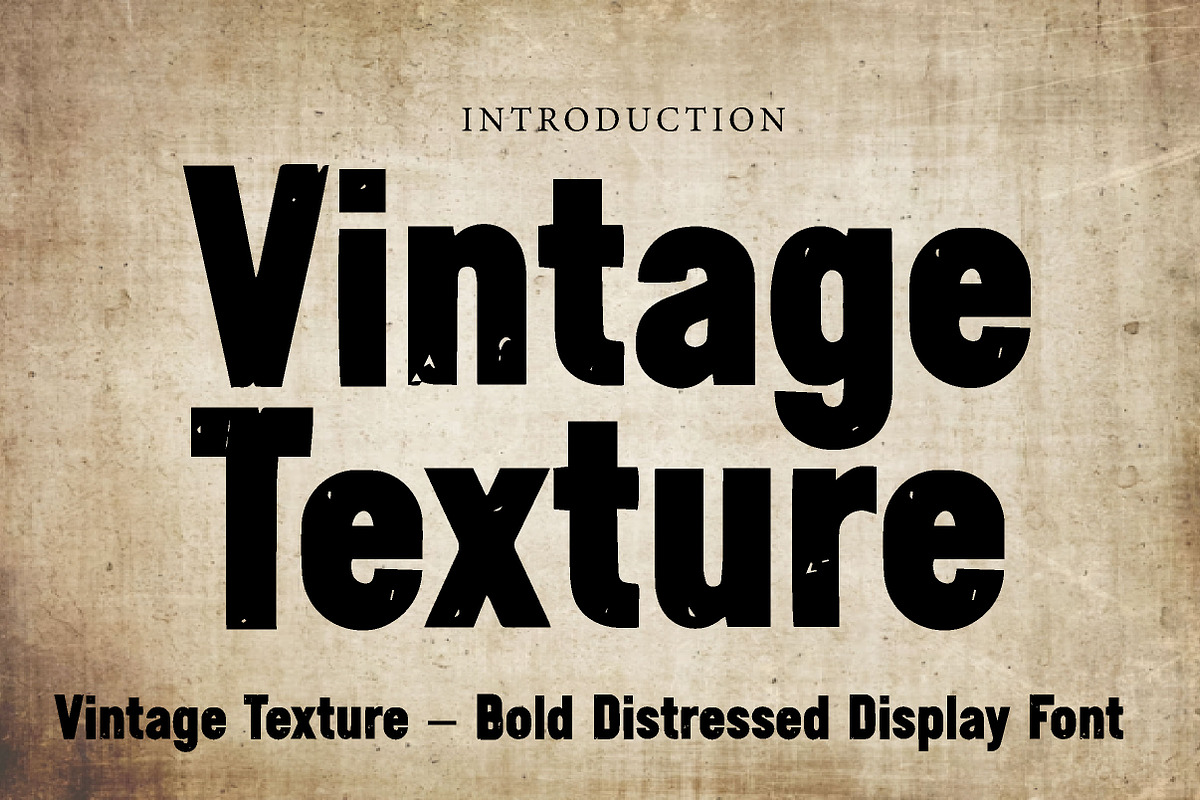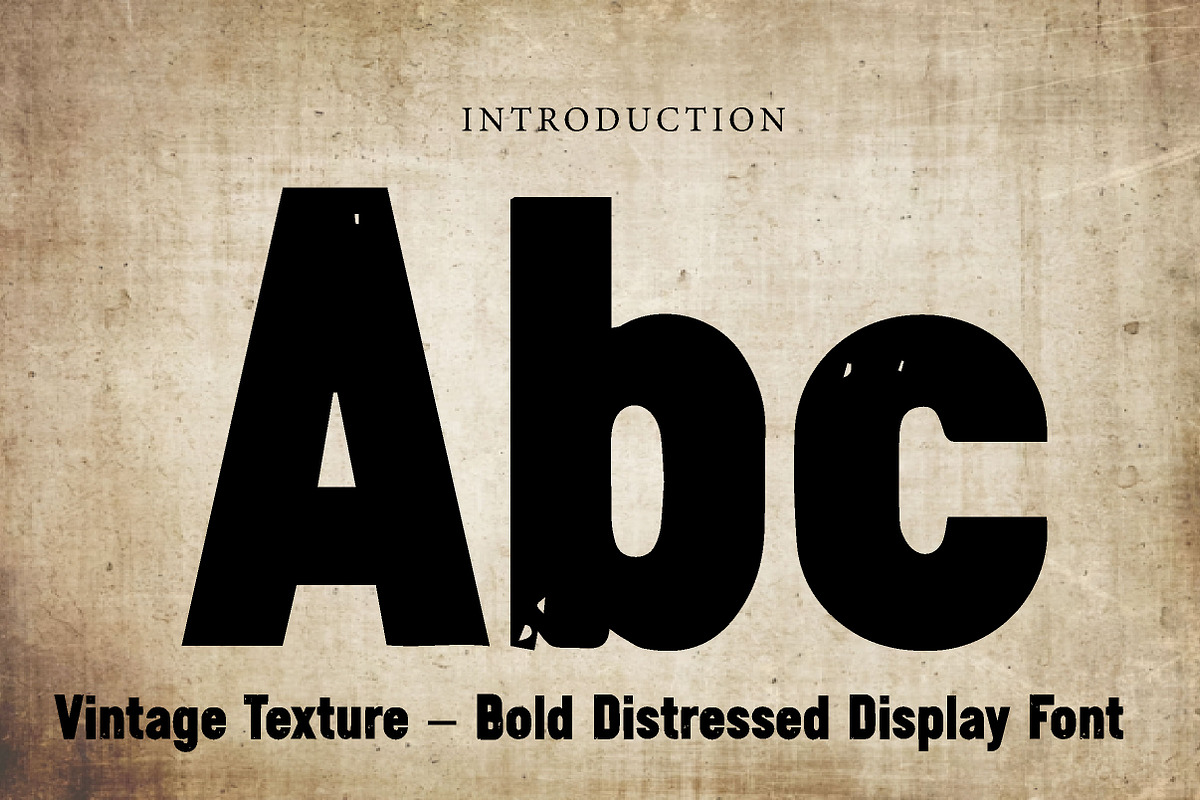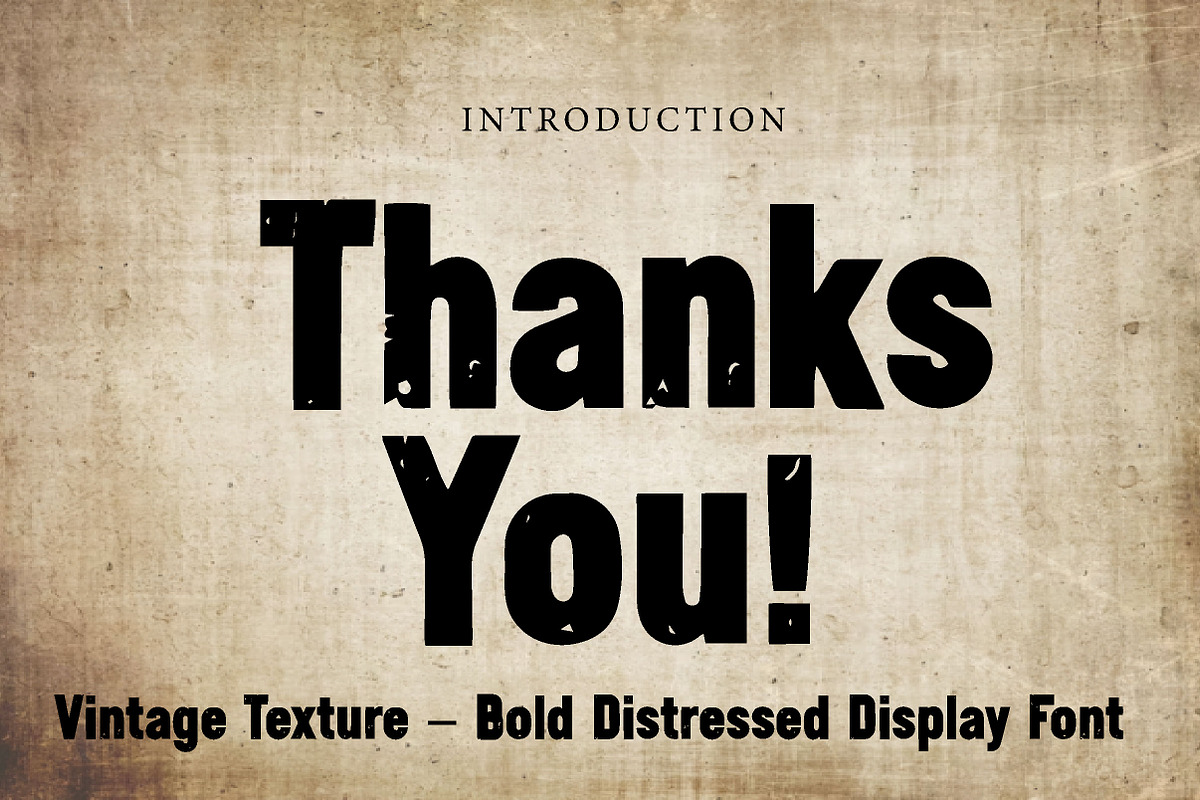
Vintage Texture
Vintage Texture – Bold Distressed Display Font
Vintage Texture is a bold, rugged, and textured display font, perfect for posters, branding, packaging, headlines, labels, and vintage-inspired creative projects.
Vintage Texture is a strong display font designed with a worn and distressed look to bring character, grit, and retro charm into your designs. With its bold letterforms and subtle textured details, this font creates a powerful vintage appearance that feels authentic and eye-catching.
Its rough and classic style makes Vintage Texture perfect for projects that need a bold and aged visual identity. Whether you are creating posters, logos, packaging, labels, merchandise, social media graphics, or editorial headlines, this font helps your typography stand out with strength and personality.